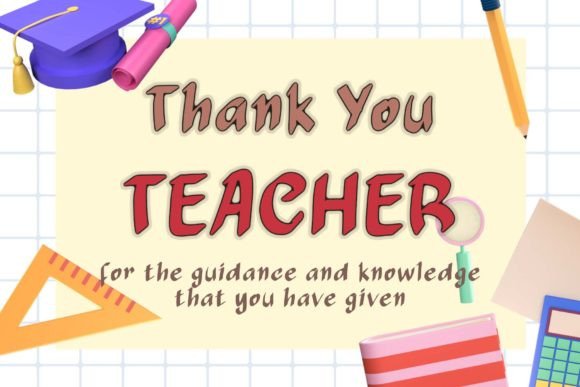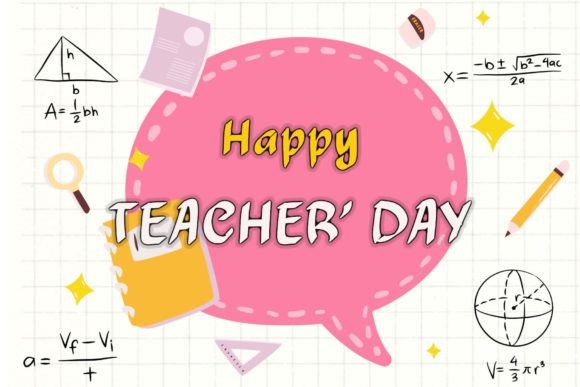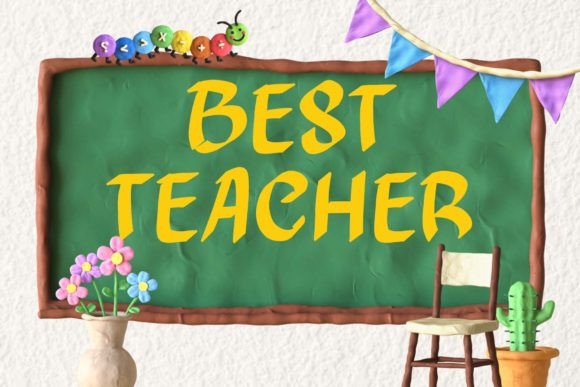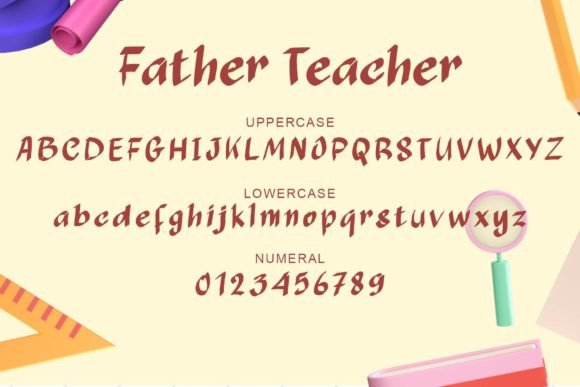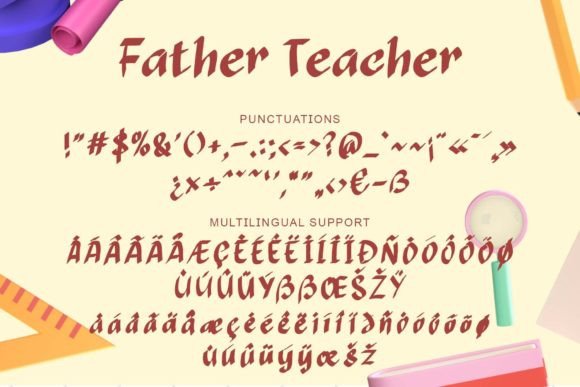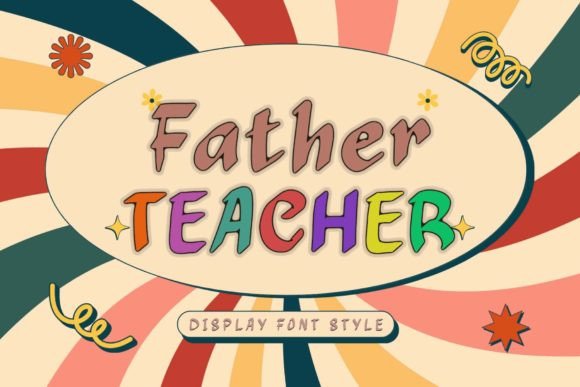
Introducing Father Teacher Font: Elevate Your Designs with Elegance
Are you a designer or crafter looking for a unique and elegant font to elevate your summer, 4th of July, Halloween, Christmas, or branding projects? Look no further than the “Father Teacher” font. This stunning display font is perfect for creating eye-catching posters, prints, stickers, and more. In this article, we’ll dive into the features and benefits of the “Father Teacher” font and explore how it can take your designs to the next level.
A Font that Exudes Elegance and Sophistication
The “Father Teacher” font is an elegant and refined display font that is sure to make a statement in any design. Its unique and stylish lettering makes it perfect for projects that require a touch of sophistication. Whether you’re creating a summer-themed poster, a 4th of July sticker, or a Christmas card, this font is sure to add a level of elegance and refinement.
Extensive Character Set for Versatility
One of the standout features of the “Father Teacher” font is its extensive character set. This font includes:
- Uppercase letters for bold and eye-catching headings
- Lowercase letters for body text and smaller details
- Numerals for adding dates, times, and numerical data
- Punctuations for adding clarity and emphasis to your text
- Multilingual support for designing in multiple languages
This extensive character set makes the “Father Teacher” font incredibly versatile and suitable for a wide range of design projects.
Ideal for Various Design Projects
The “Father Teacher” font is perfect for a variety of design projects, including:
- Summer-themed designs, such as posters, stickers, and social media graphics
- 4th of July designs, including patriotic posters and flyers
- Halloween designs, such as spooky stickers and invitations
- Christmas designs, including holiday cards and posters
- Branding and packaging designs that require a touch of elegance
- Posters, prints, and stickers for educational or promotional purposes
Why Choose the Father Teacher Font?
- Unique and elegant design: The “Father Teacher” font has a distinctive and refined design that will set your projects apart from the rest.
- Extensive character set: With uppercase and lowercase letters, numerals, punctuations, and multilingual support, this font has everything you need to create stunning designs.
- Versatility: The “Father Teacher” font is suitable for a wide range of design projects, from summer-themed designs to branding and packaging.